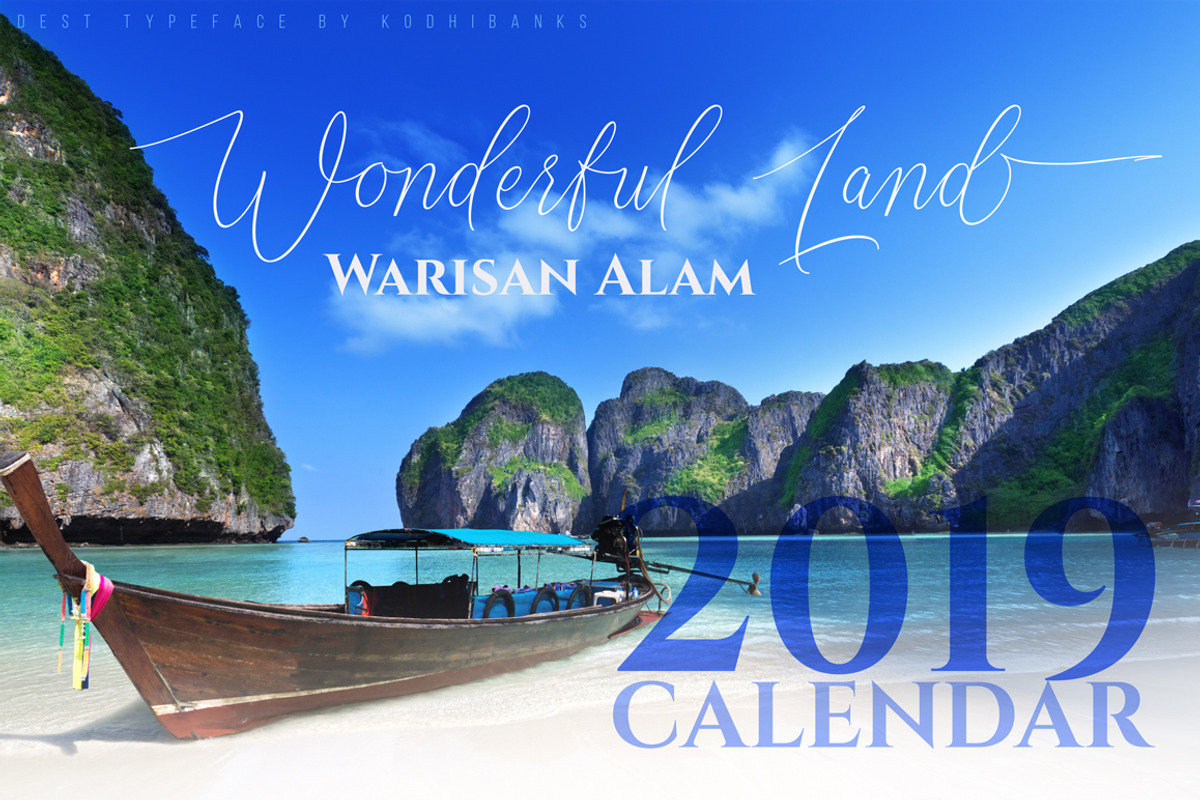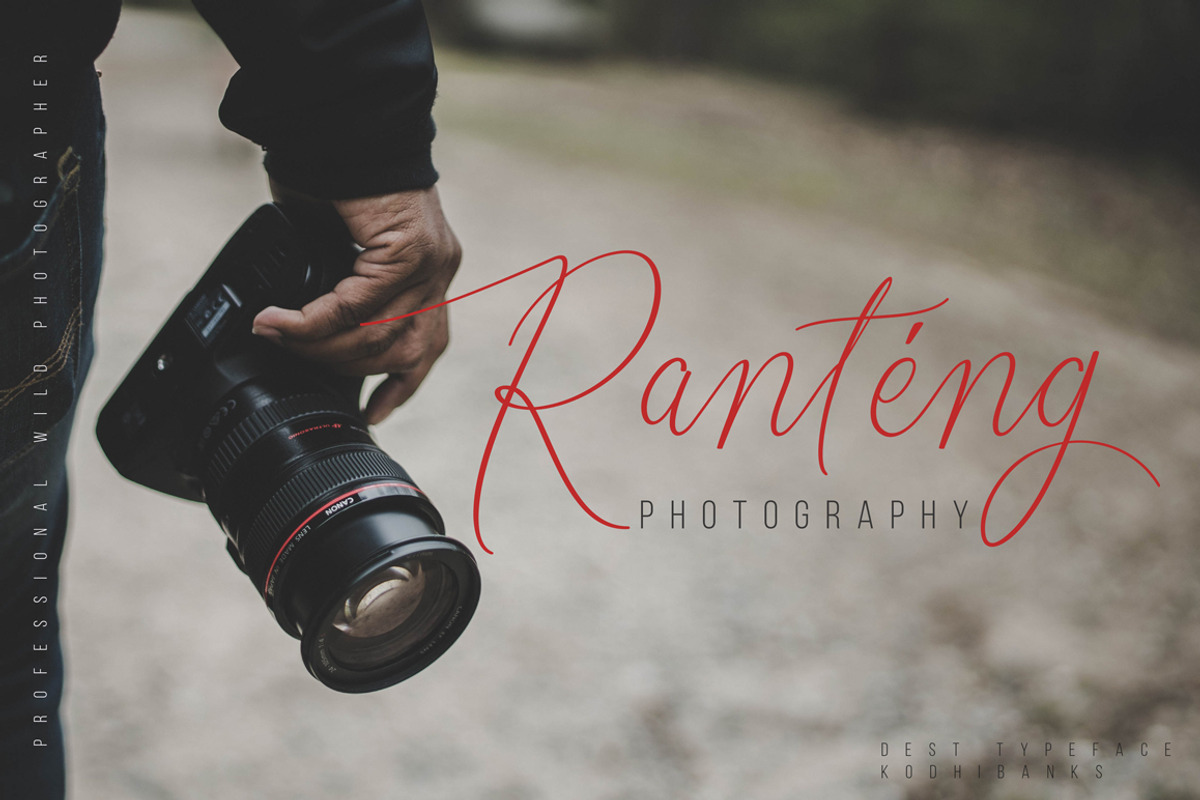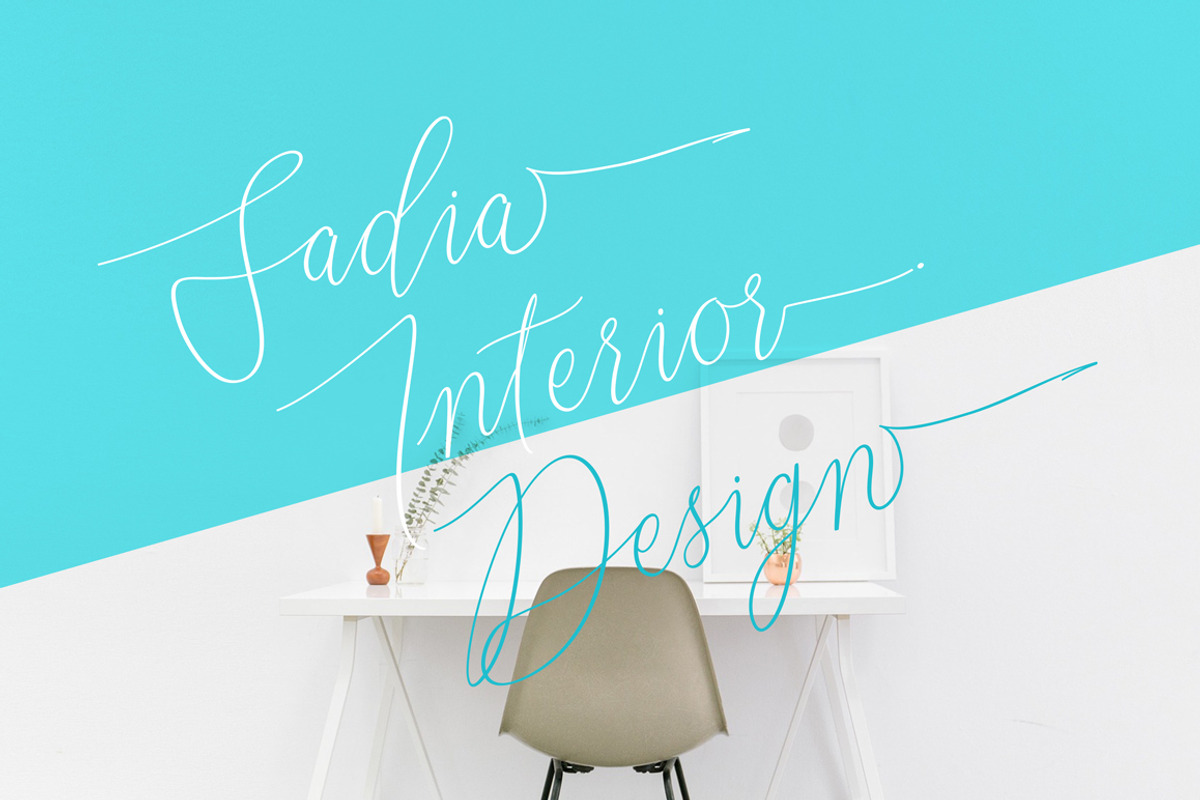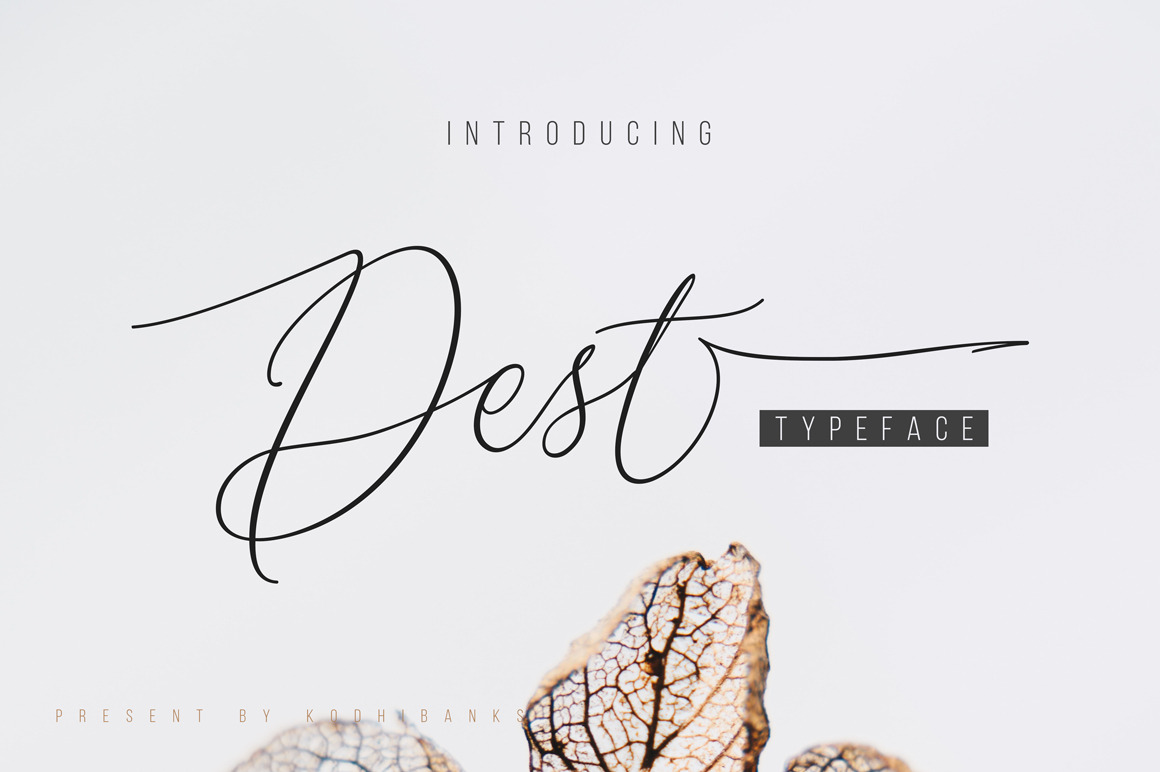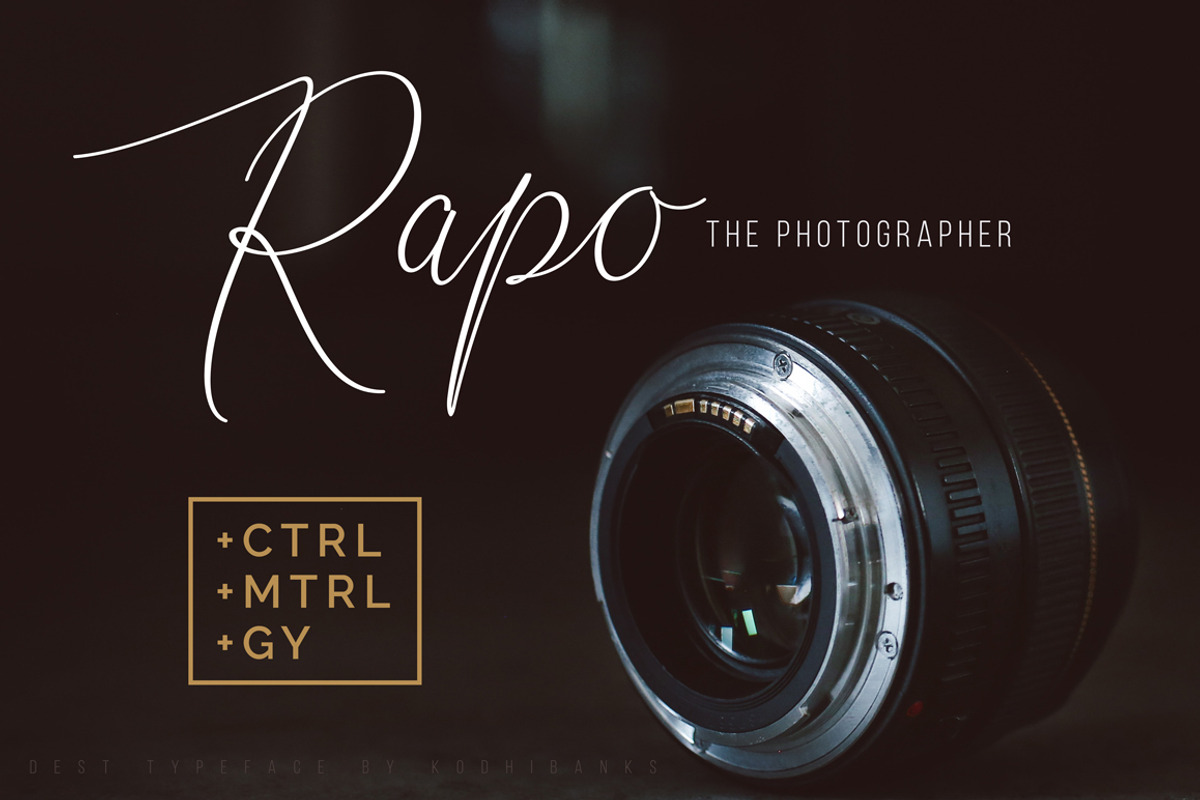
Dest Typeface
Dest Typeface is a thin type of writing, made with close touch with natural handwriting, with several improvements. Which will look beautiful on your project that requires a touch of natural handwriting. With the default Opentype feature, this script comes alive as if you were writing it yourself.
Dest Typeface is suitable for wedding invitations, thin logo lettering, greeting cards, quotes, photo captions, posters, branding, water-based paint designs, correspondence, and various other purposes
Dest Typeface includes several Ligatures, Alternate Contextual, Stylistic Alternative, Set Stylistic (This alternative can be accessed by turning on 'Alternate Stylistic' in Photoshop, or through any software with glyph panels, such as Adobe Illustrator, Photoshop CC), and PUA coding. (special encoded font).
- Contextual Alternates
- Stylistic Sets